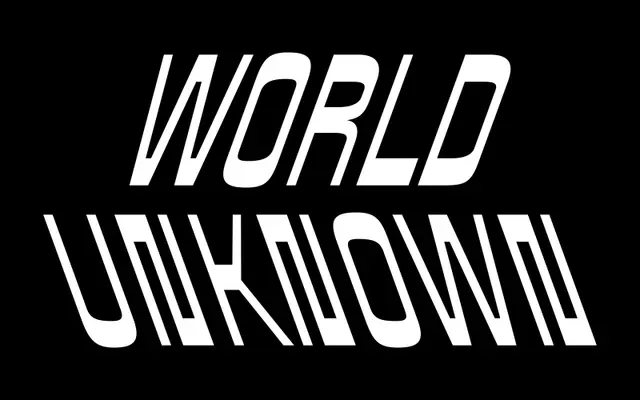
Rockbox specimen from The Designers Foundry
A single-weight display face by Kara Zichittella, originally drawn for an experimental music release, offered in Regular, Slant and Backslant cuts.
Designed by Berlin-based Zeitype for a poster promoting Dane Close's 'MIC' LP on Power Station Records, Rockbox carries the industrial and dynamic qualities of its musical source material. The family offers three stylistic variants — Regular, Slant and Backslant — alongside a wide set of alternates accessible via upper and lowercase keys. Suited to record covers, posters and editorial work where an angular, experimental tone is needed.
Rockbox is a display typeface with dynamic, industrial characteristics; its bold, geometric construction and multiple slant variants place it firmly in the display category, designed for expressive poster and editorial use.